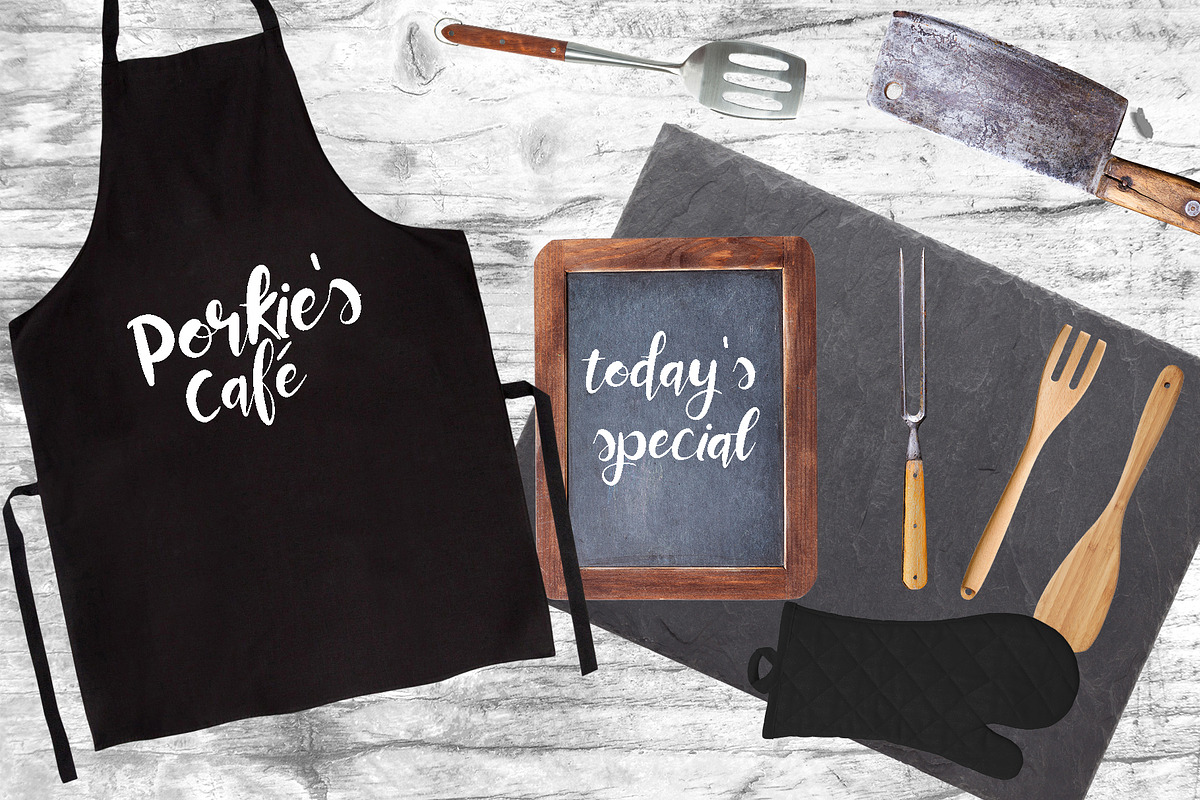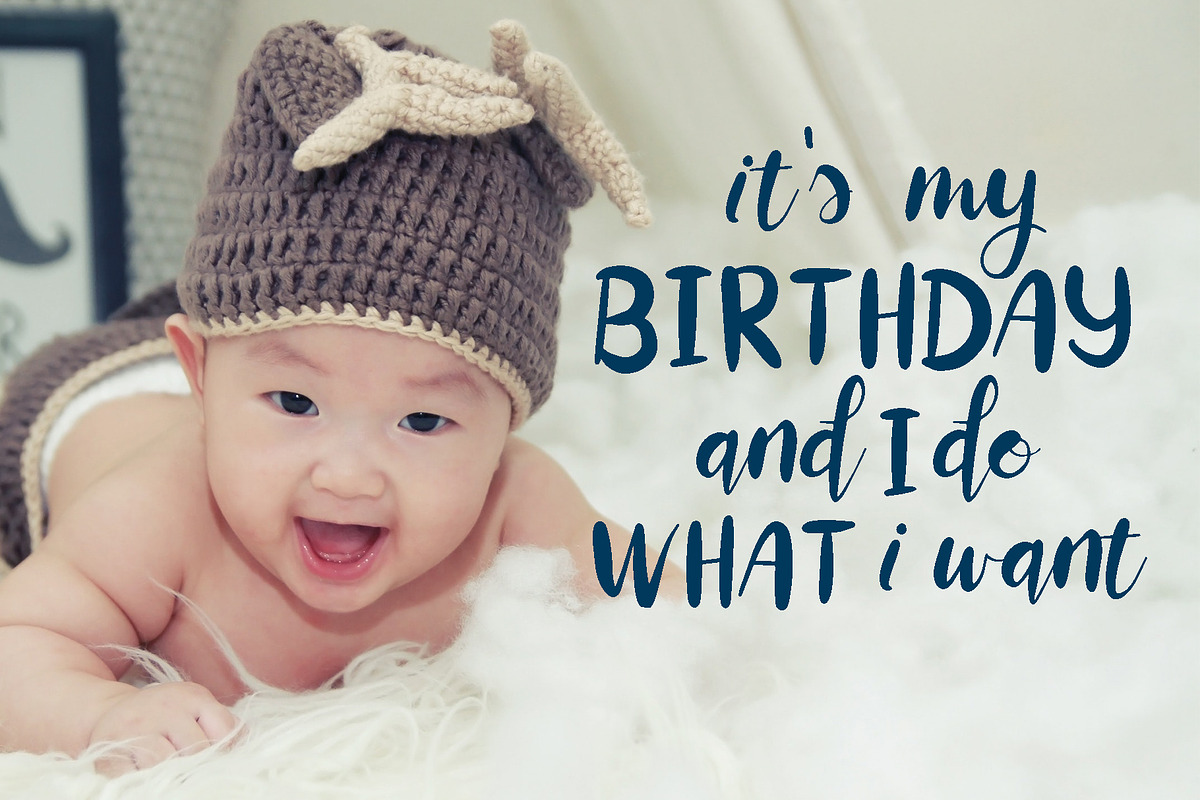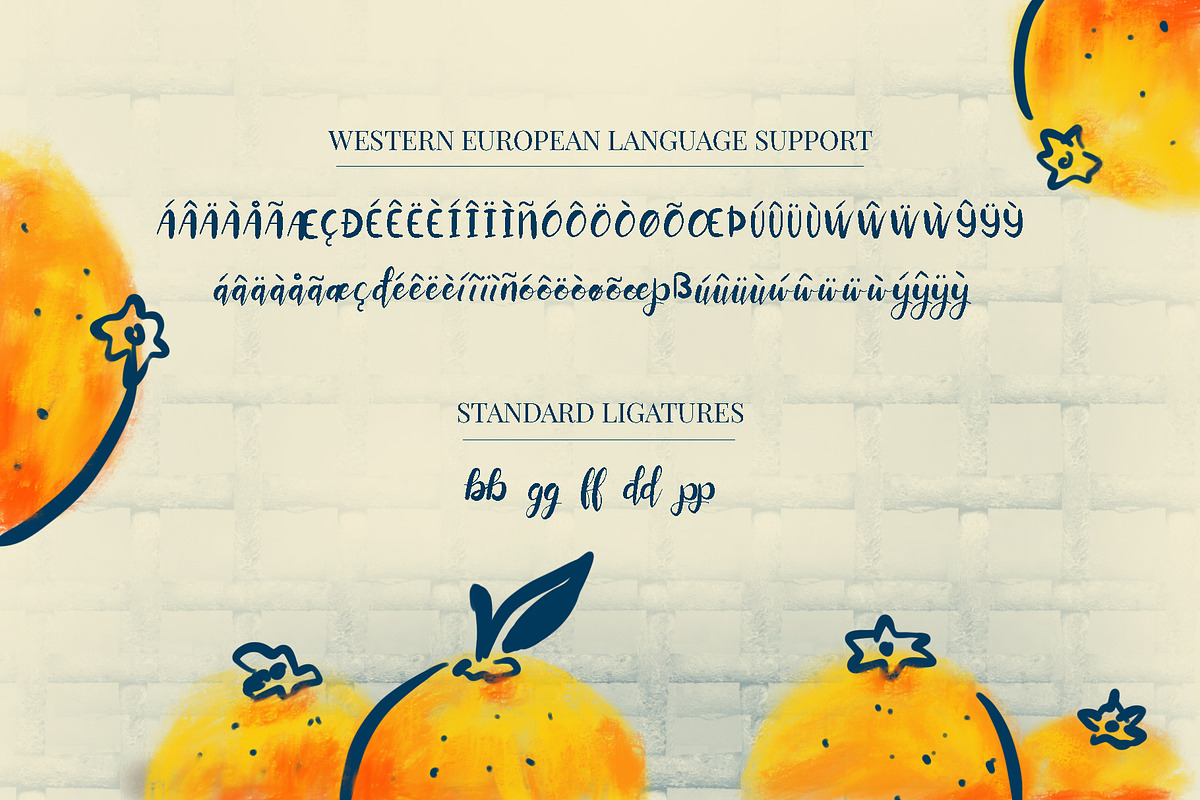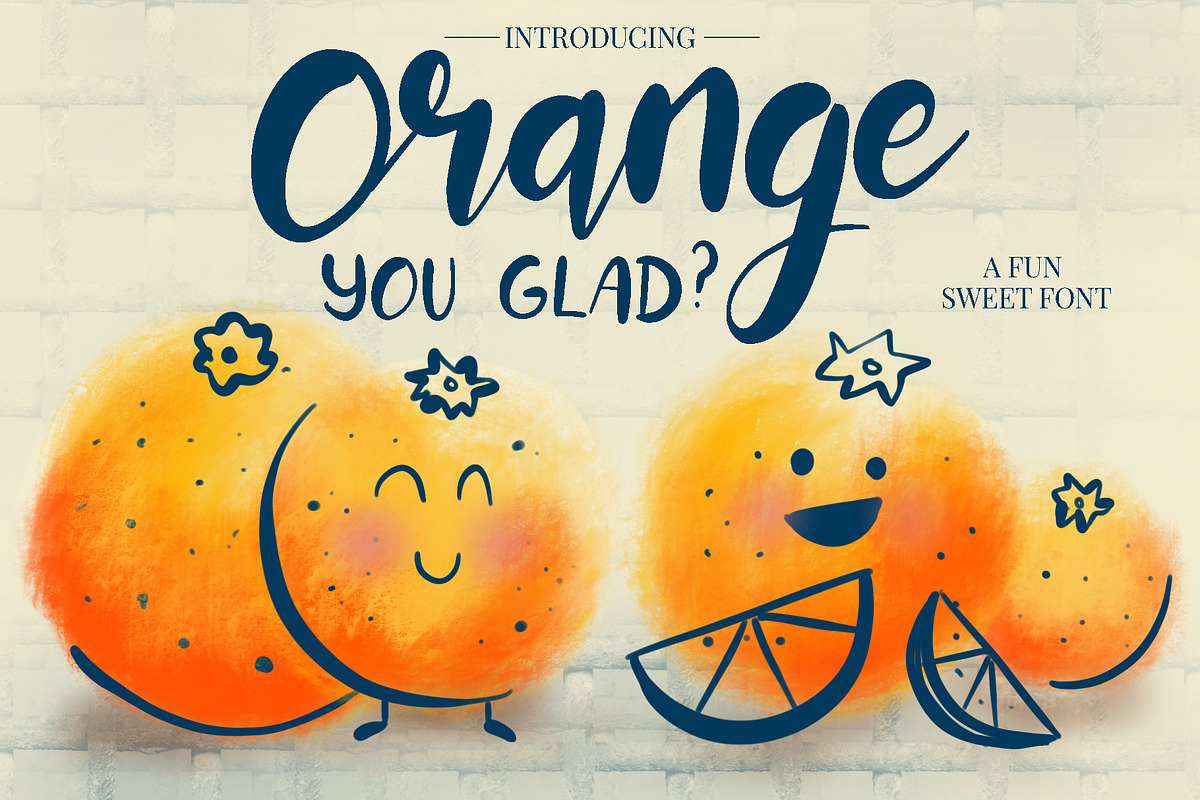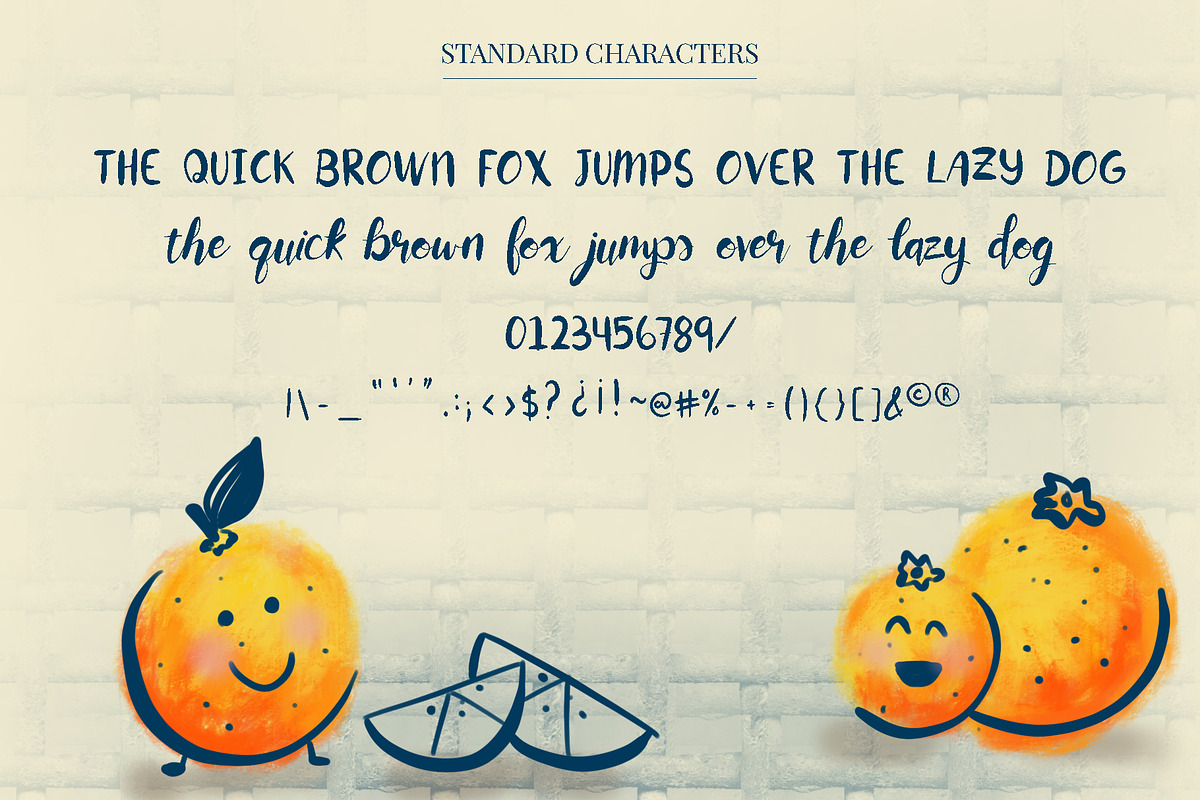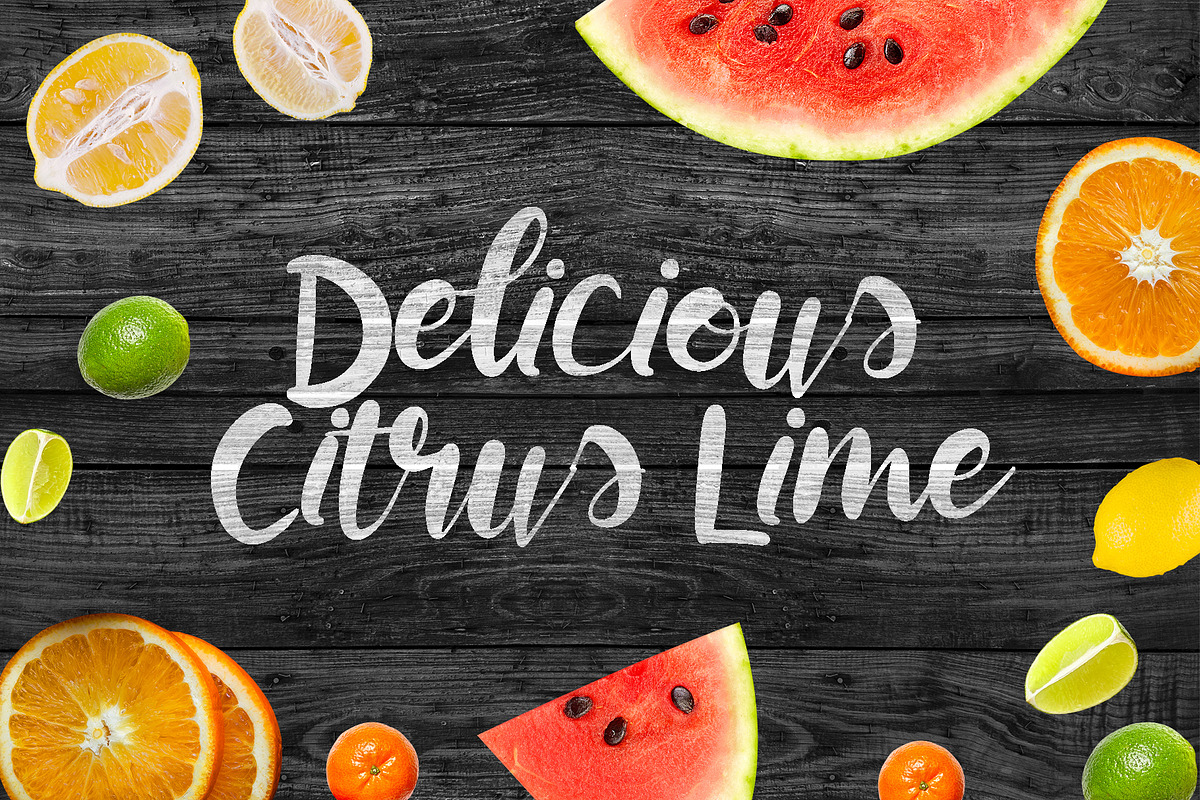
Orange You Glad Font
Introducing Orange You Glad?! A fun hand-drawn font, perfect for a professional designer, social media, or craft project that needs some character and personality.
Orange You Glad Font by Tu Neuwin fits naturally into Branding, posters, packaging, typography.